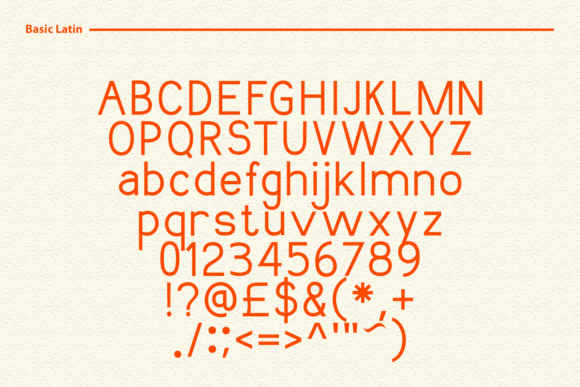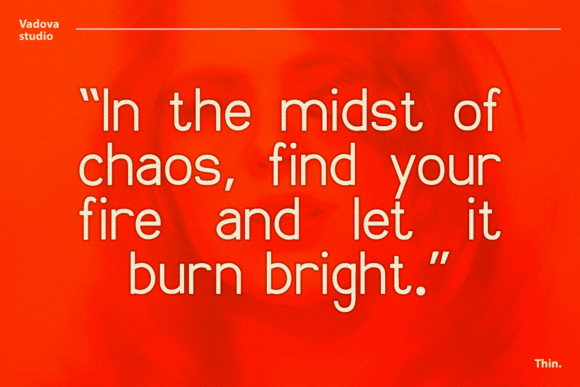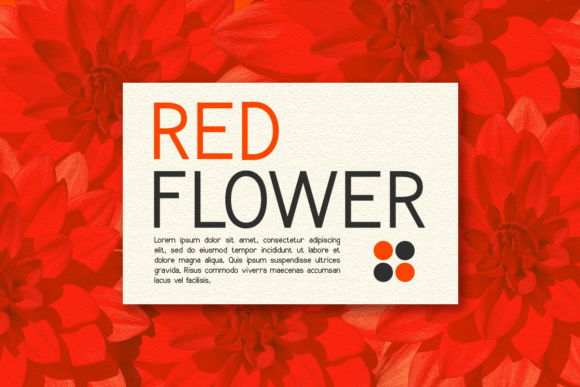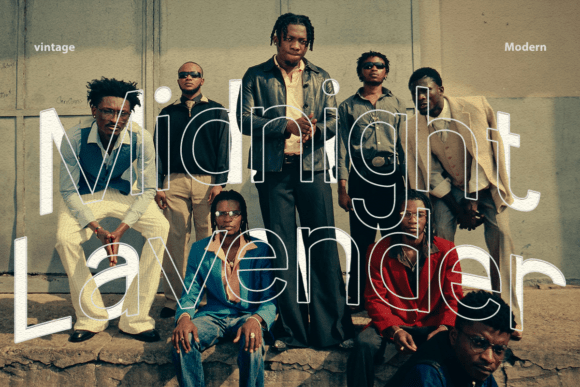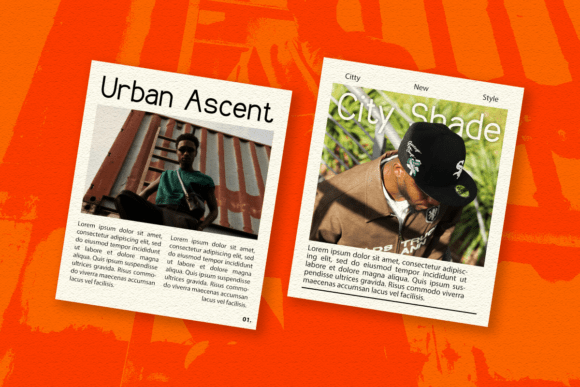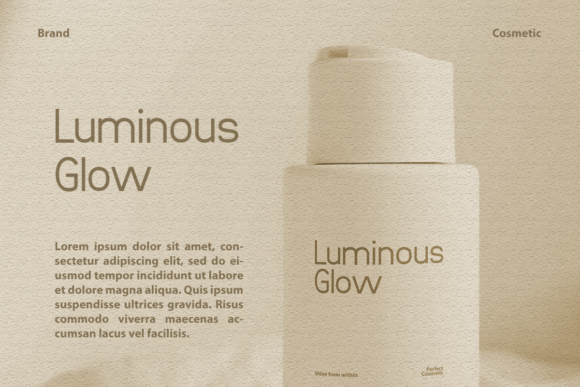
Introducing Colossia Font: The Epitome of Modern Elegance
In the realm of typography, few fonts manage to strike a balance between simplicity and sophistication. Colossia Font, however, stands out as a beacon of modern elegance, designed with the utmost care to cater to the needs of designers and crafters alike. This clean and modern thin sans serif typeface is not just a font; it’s an experience, tailored to bring a touch of refinement and clarity to a wide array of design projects.
The Design Philosophy Behind Colossia
Colossia was crafted with simplicity and clarity at its core. Its design philosophy revolves around creating a visual language that communicates with ease and precision. The elegant line weight of Colossia ensures that it remains legible even at smaller sizes, making it versatile for use in various contexts, from digital platforms to print materials.
One of the standout features of Colossia is its generous spacing. This thoughtful design element ensures that the font remains airy and uncluttered, enhancing readability and giving designs a contemporary feel. The balanced structure of Colossia further contributes to its aesthetic appeal, providing a sense of stability and harmony that is crucial for creating visually appealing designs.
Applications of Colossia Font
Colossia’s versatility is one of its most compelling attributes. Its range of applications is vast, making it an invaluable asset for designers working on a variety of projects. Here are some of the areas where Colossia truly shines:
- Editorials: For magazines, newspapers, and digital publications, Colossia offers a sophisticated look that elevates the reading experience.
- Branding: Its modern and clean appearance makes it perfect for brands looking to convey a sense of elegance and professionalism.
- Lifestyle Design: Whether it’s for advertising, packaging, or promotional materials, Colossia brings a touch of class and refinement.
- Skincare Packaging: The font’s elegance and simplicity make it particularly well-suited for skincare and beauty product packaging, where clarity and sophistication are key.
- Portfolios: Designers can use Colossia to create portfolios that showcase their work with a modern and airy feel.
- Minimalist Layouts: For designs that embrace minimalism, Colossia provides a beautiful, unobtrusive backdrop that lets the content shine.
Why Choose Colossia?
In a market flooded with typefaces, Colossia distinguishes itself through its unique blend of modernity and elegance. Here are a few reasons why designers and crafters are gravitating towards Colossia:
- Contemporary Aesthetic: Colossia brings a fresh and modern look to designs, making them instantly more engaging.
- Versatility: Its wide range of applications means that Colossia can be a go-to font for many different projects.
- Sophistication: The font adds a touch of sophistication to any design, making it perfect for projects that require a bit of elegance.
- Legibility: Colossia’s design prioritizes readability, ensuring that messages are communicated clearly and effectively.
Colossia Font is more than just a typeface; it’s a design tool that empowers designers and crafters to create stunning, modern designs. Its blend of elegance, simplicity, and versatility makes it an excellent choice for a wide range of projects. Whether you’re working on editorials, branding, lifestyle design, or anything in between, Colossia offers a contemporary, airy feel with a touch of sophistication that’s hard to match. Embrace Colossia in your next project and experience the difference it can make.